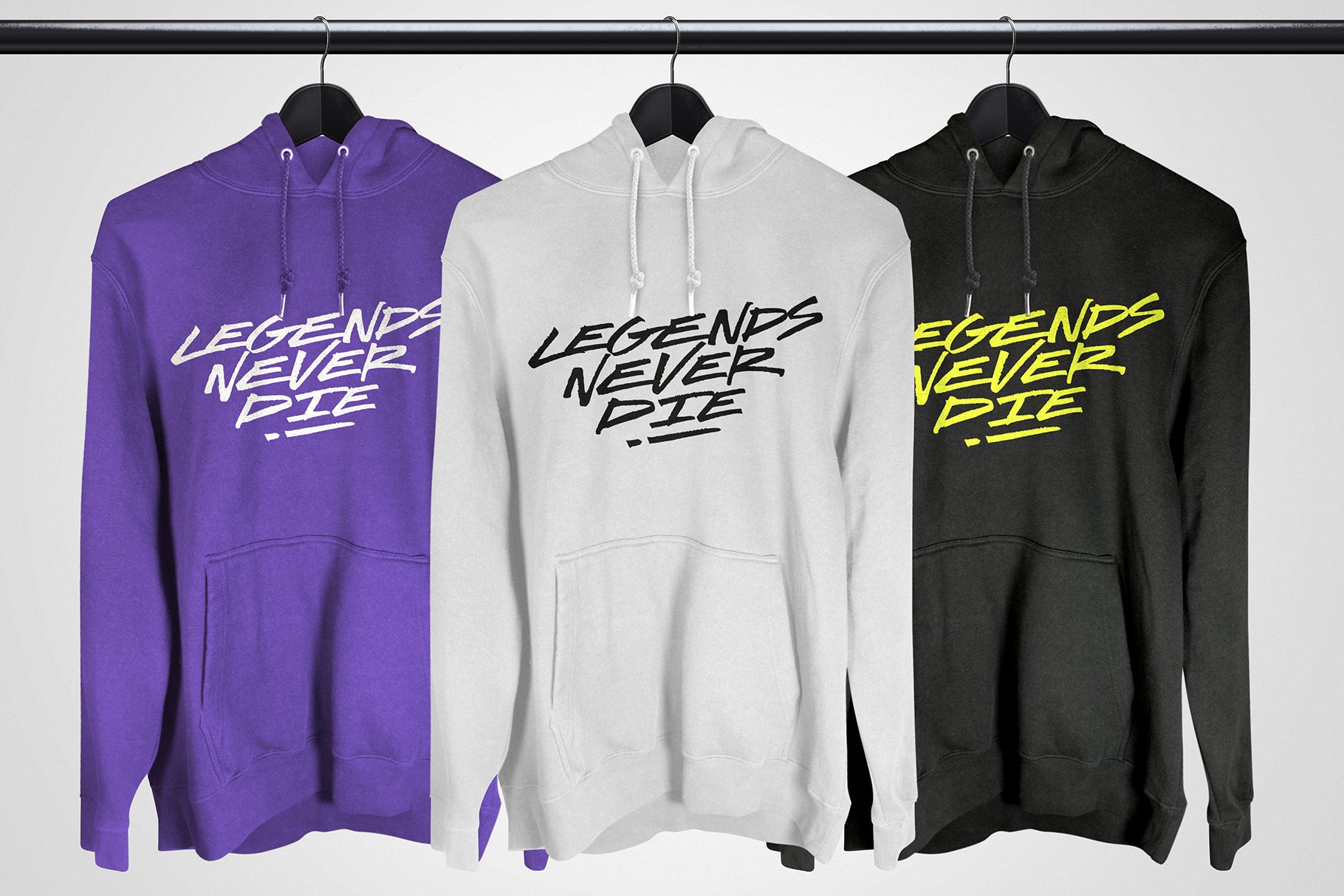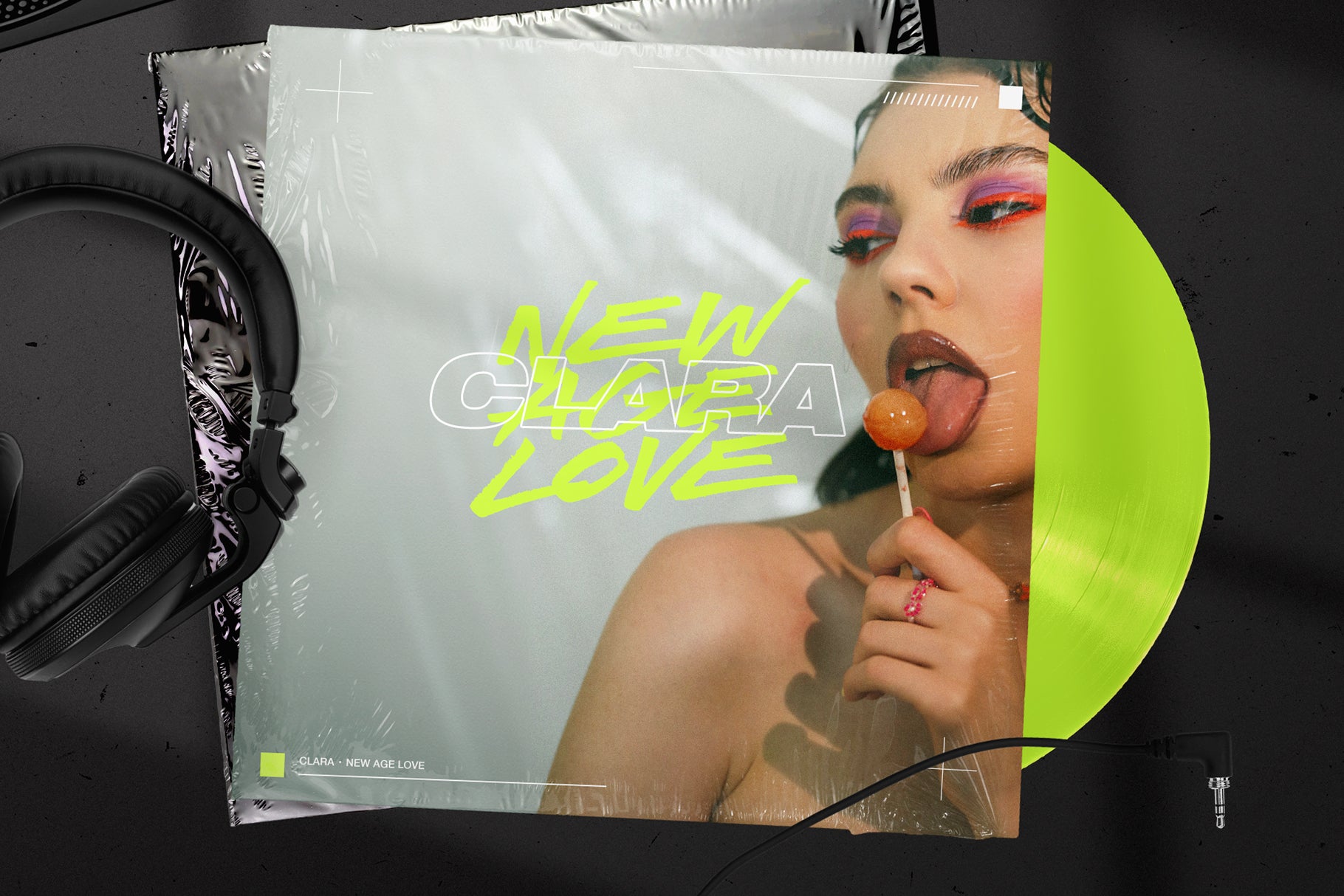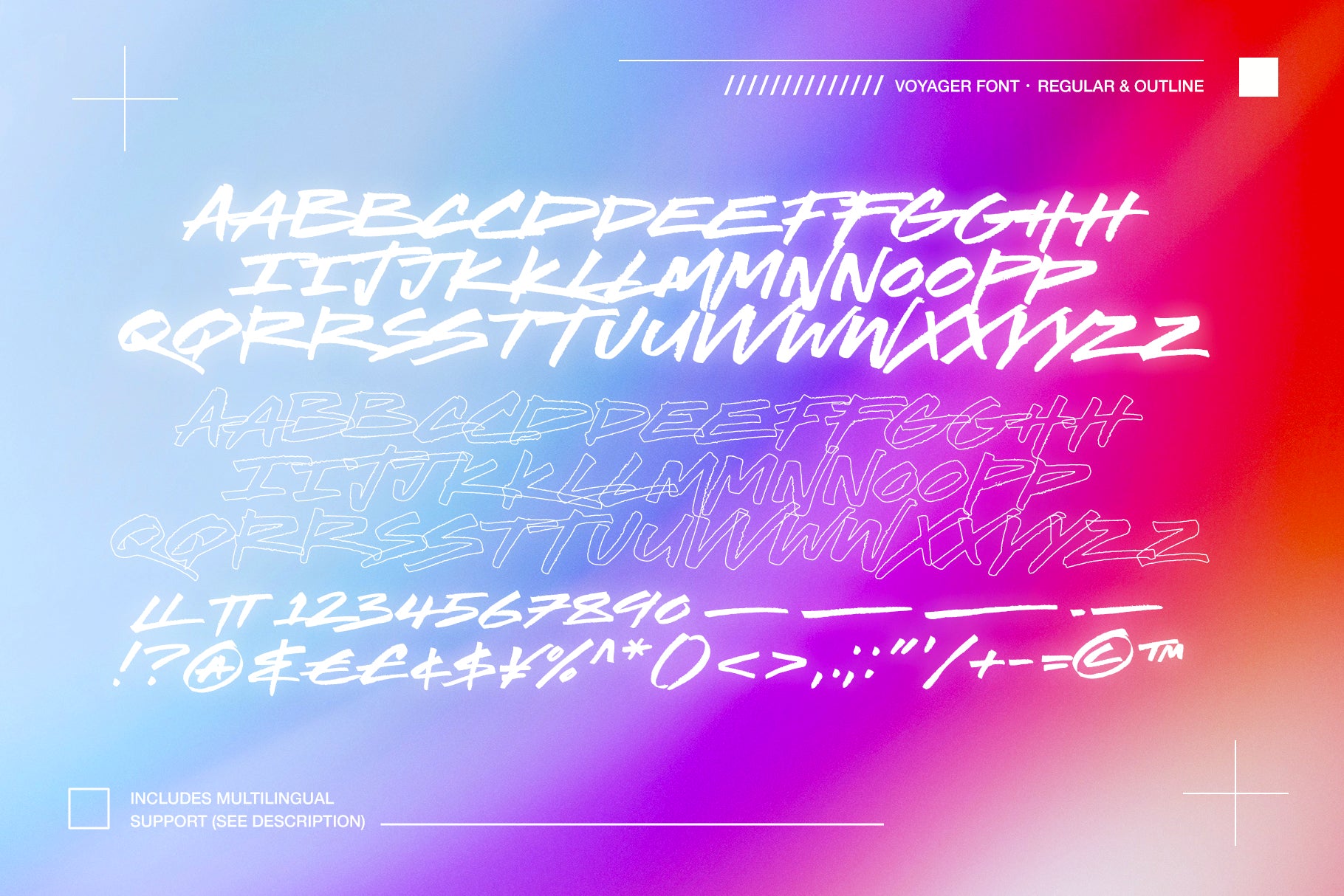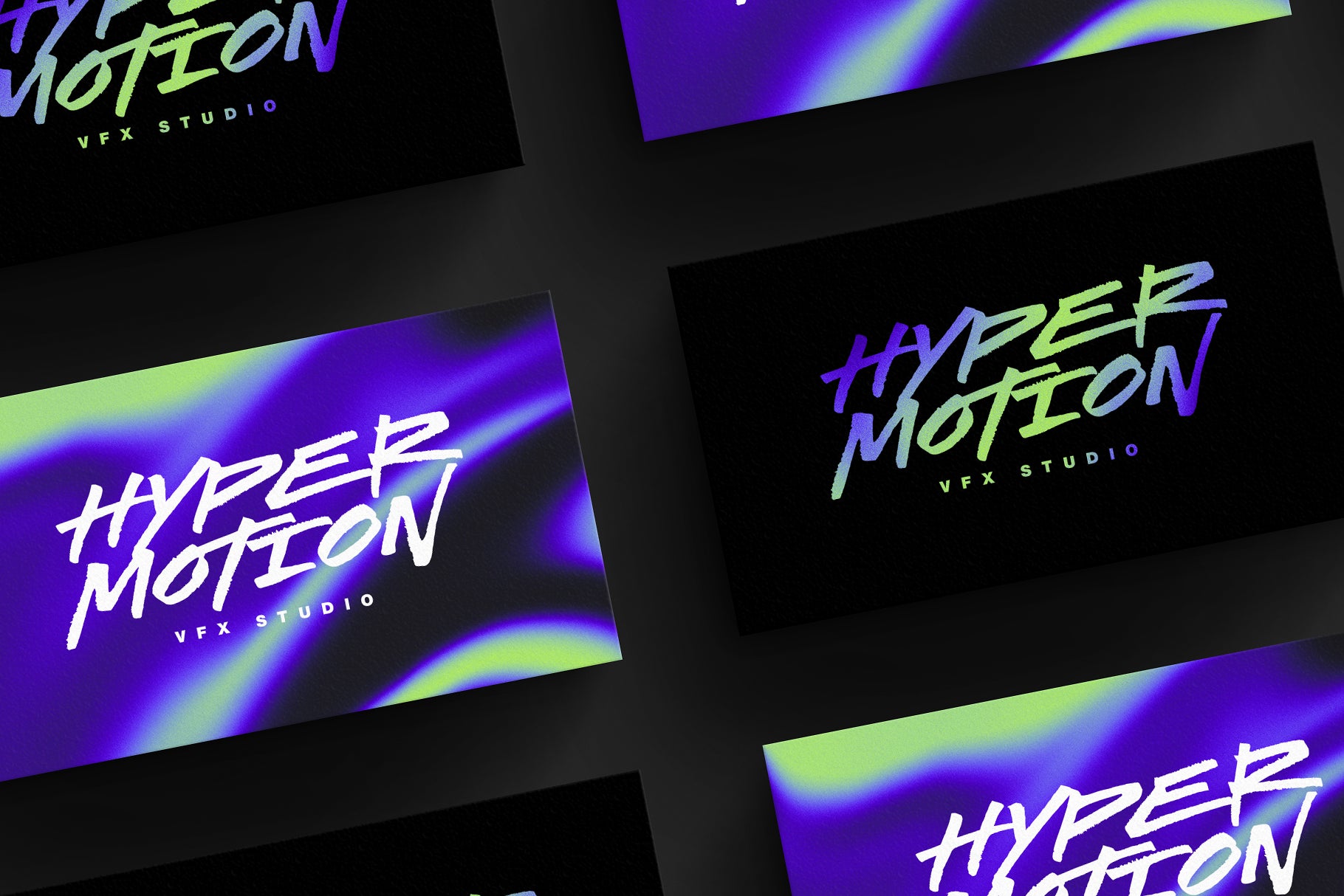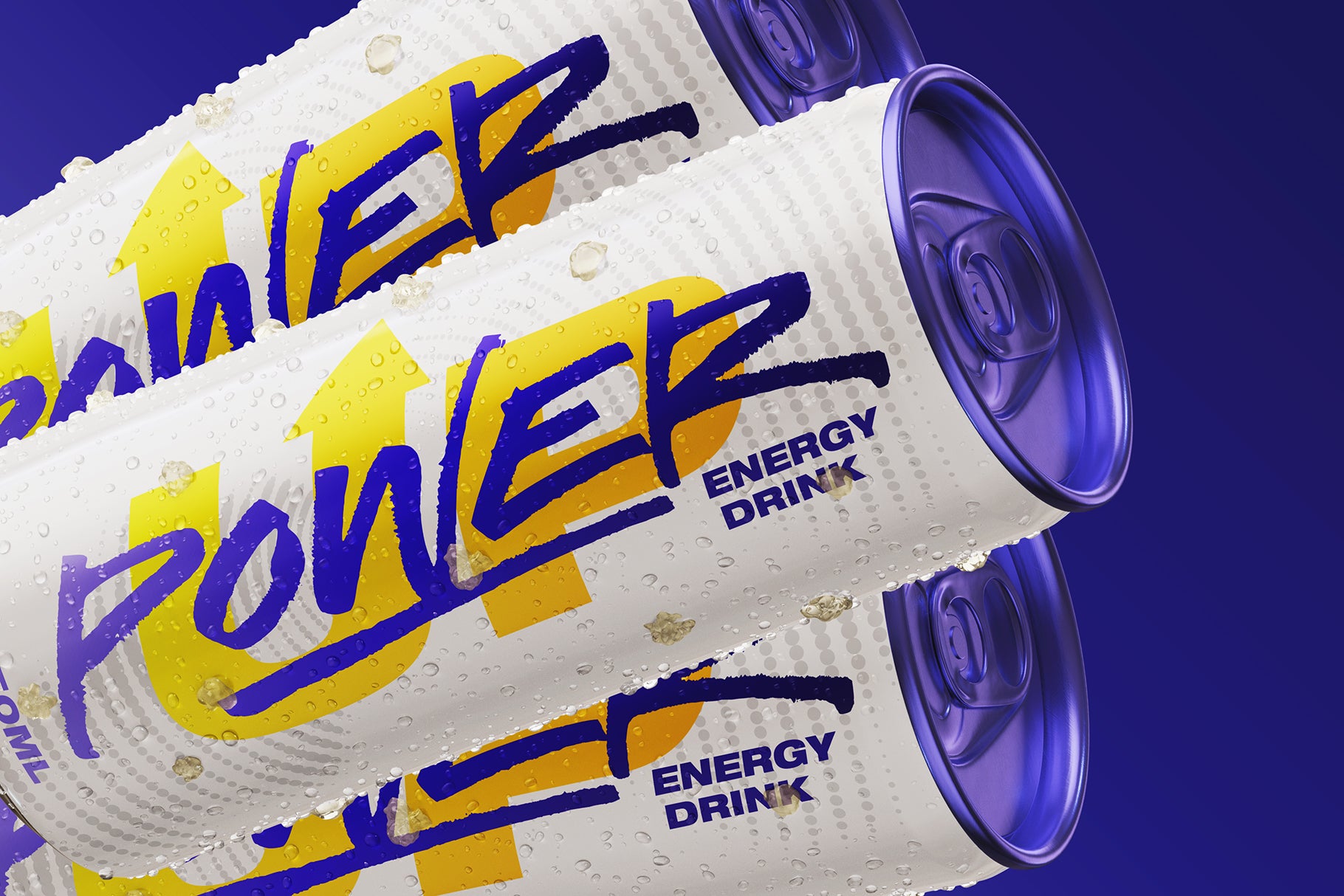
Voyager Brush Font
The Voyager Brush Font is a wild and wide all-caps brush font featuring energetic strokes and a gritty texture. It includes two font files—VOYAGER Regular, a handcrafted brush font with a full set of numerals and punctuation, and VOYAGER Outline, an outlined version for added depth, both supporting multiple languages.